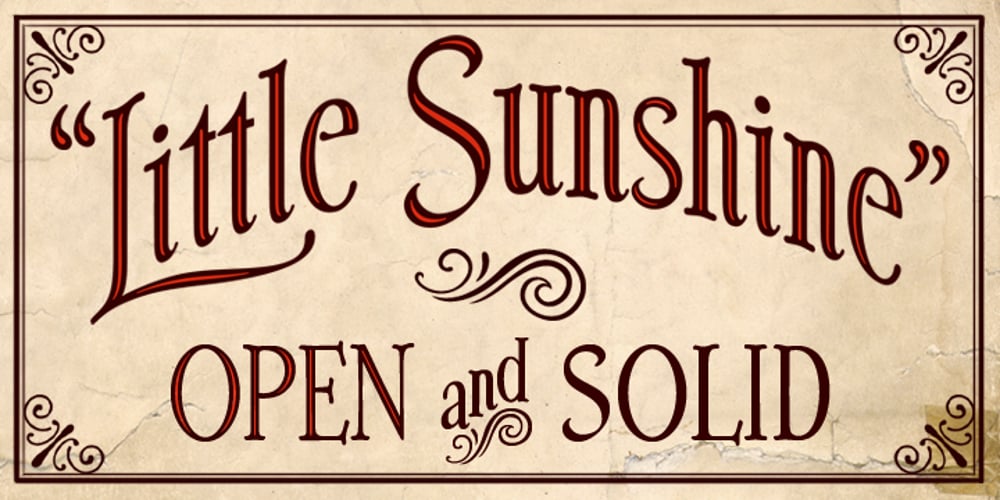
Little Sunshine Font Family was designed by Ronna Penner and published by Typadelic. Little Sunshine contains 2 styles and family package options. Little Sunshine was created from the lettering found on a songbook from 1883. I maintained the tight letter spacing and skinny characters for a very distinctive and original look. While Little Sunshine originated in the 19th century it’s definitely up to 21st century standards. I’ve included the Open and Solid versions in OpenType format…two typefaces for the price of one! You’ll find ligatures, stylistic alternates and old style numerals in keeping with the spirit of this pretty, old-fashioned typeface. Check out the glyph map to see all the characters.